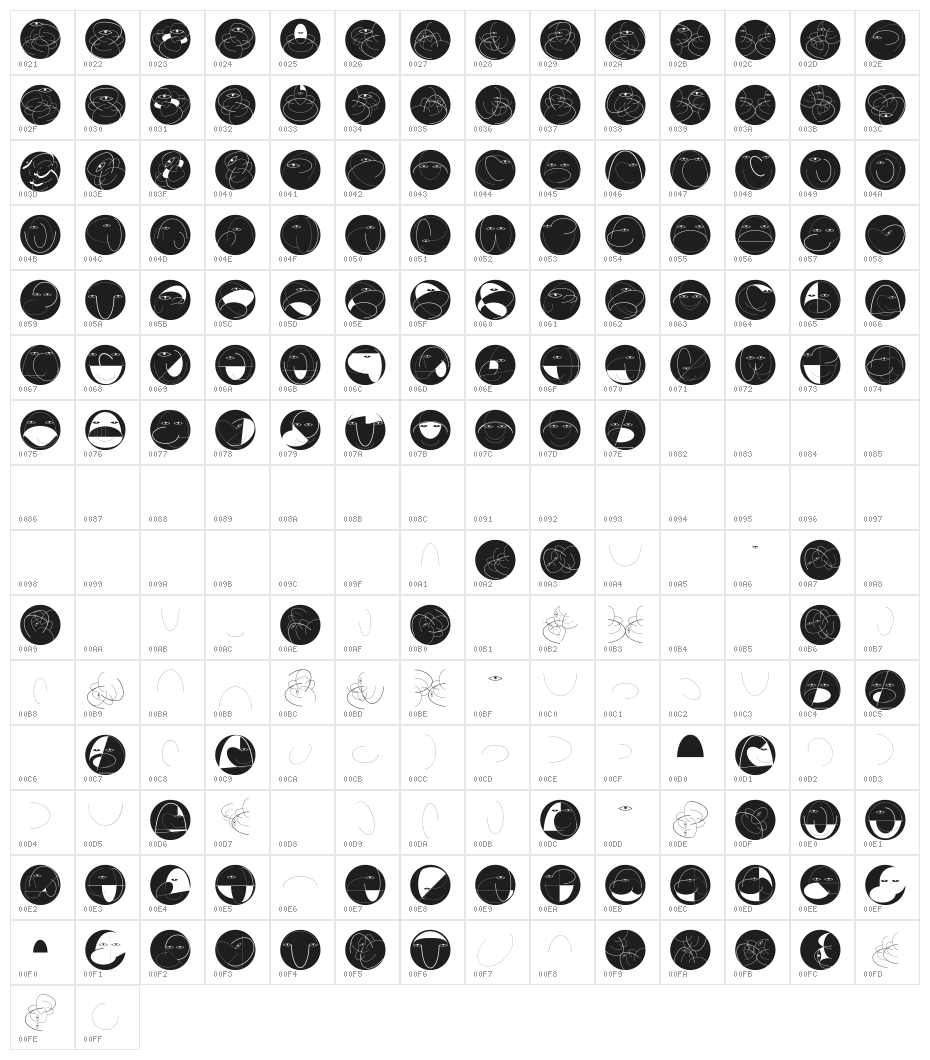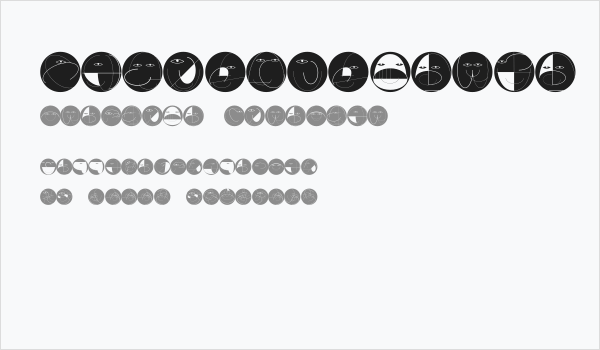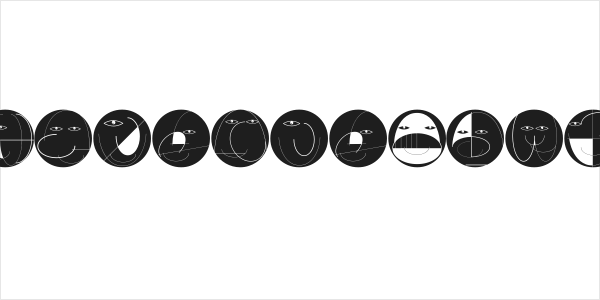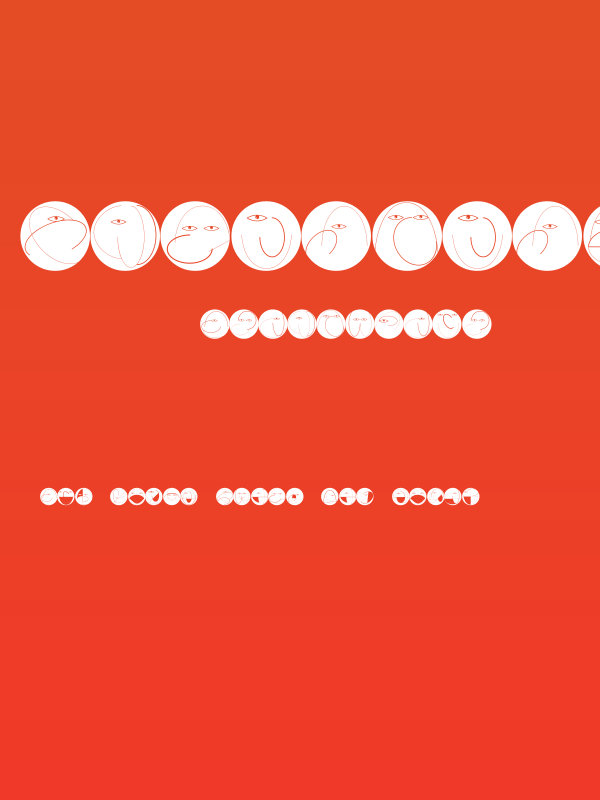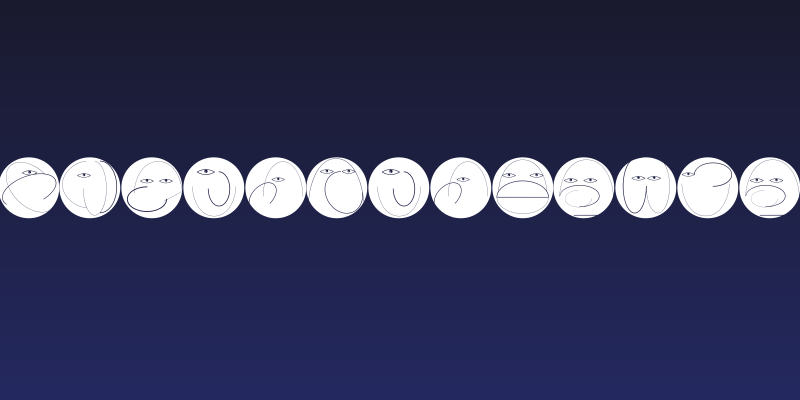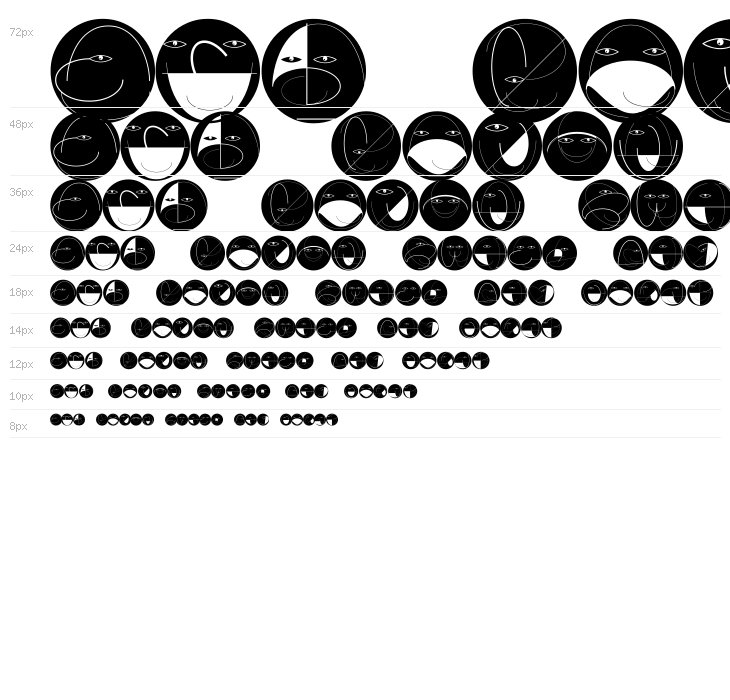
BowingInverse Font
BowingInverse Description
This font features a highly abstract and artistic design, with each character enclosed within a circular shape. The strokes are thin and delicate, creating a sense of elegance and sophistication. The characters are not immediately recognizable as traditional letters or numbers, suggesting a decorative or conceptual use rather than practical text. The overall appearance is modern and avant-garde, with a playful yet mysterious vibe. This font is likely intended for artistic projects where the visual impact is more important than readability.
| Overall Style | Modern, Abstract |
| Use Case | Artistic projects, Conceptual design |
| Proposed Projects | Ideal for art installations, modern art pieces, abstract branding, and conceptual design projects. |